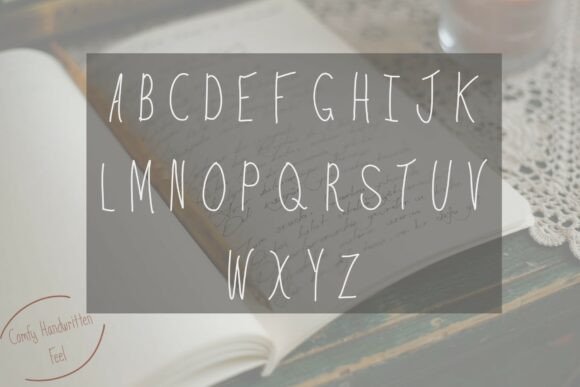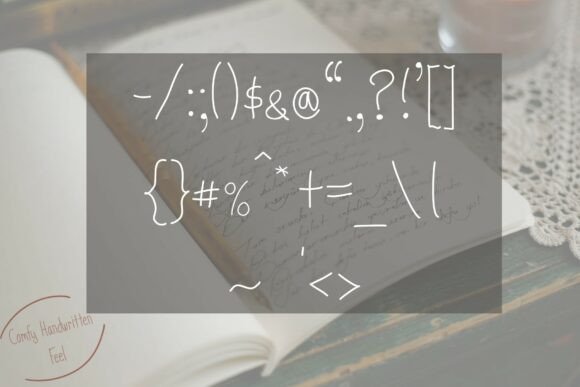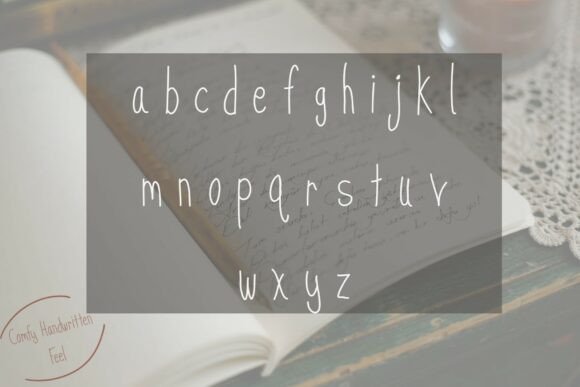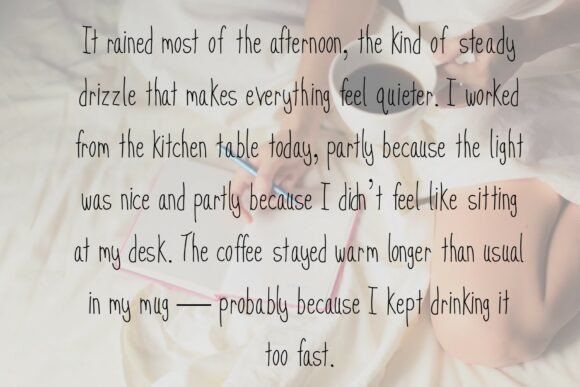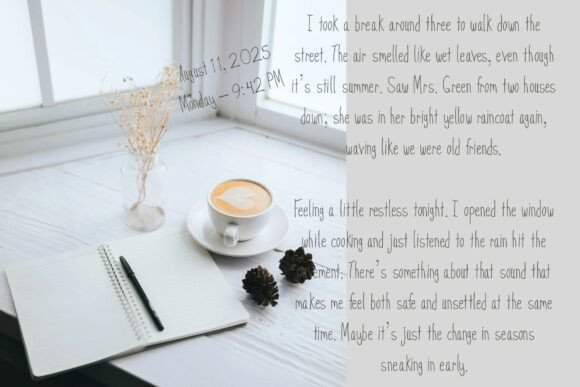
Introduction to Journal Pen Light Font
Have you ever found yourself scribbling down ideas in a notebook, surrounded by scattered papers and half-finished projects? For many creatives, those moments of inspiration are where the magic happens. And what if you could capture that same feeling in your digital designs? Enter the Journal Pen Light Font, a beautifully crafted handwritten font that brings warmth and authenticity to any creative project.
Designed to mimic the natural flow of handwriting, Journal Pen Light Font features smooth curves, organic shapes, and just the right amount of irregularity to give it a truly unique feel. Whether you’re working on a logo, social media graphics, or even product packaging, this high-quality font is sure to add a personal touch. With its transparent background and versatility, it’s the perfect design resource for anyone looking to elevate their creative work.
Key Features of Journal Pen Light Font
- High-quality design resource for creative projects, offering a unique and elegant aesthetic.
- Features a high-resolution design, suitable for use in print and digital applications.
- Available in a single weight, making it easy to use in a variety of design contexts.
- Perfect for designers looking for a clean and sophisticated font for their next creative project.
Honest Review: Journal Pen Light Font
I recently stumbled upon the Journal Pen Light Font, and I must say it’s been a great addition to my design arsenal. As a designer, I’m always on the lookout for high-quality, free downloads that can elevate my creative projects. This font definitely fits the bill.
- ✨ The Journal Pen Light Font has a lovely, hand-written feel that’s perfect for adding a personal touch to designs.
- ✨ The font is highly legible, making it easy to read even in smaller sizes.
- ✨ The transparent background feature allows for seamless integration with other design elements.
- ⚠️ The font may not be suitable for formal or professional applications, as it has a more casual, handwritten feel.
- ⚠️ The font may not be as versatile as some other fonts, as it’s primarily designed for creative projects.
Overall, I’m impressed with the Journal Pen Light Font. It’s a great design resource that’s perfect for adding a personal touch to creative projects. If you’re looking for a high-quality, free font that’s easy to use, I’d definitely recommend giving it a try.
The Journal Pen Light Font is a versatile design resource that can be used in a variety of creative projects, including blog posts, social media graphics, and presentations. Its high-quality design makes it a popular choice for designers and non-designers alike.
To get the most out of the Journal Pen Light Font, be sure to use it with a transparent background to create a clean and modern look. You can also experiment with different font sizes and colors to add visual interest to your design. As a free download, this font is a great resource for anyone looking to add a touch of elegance to their creative project.